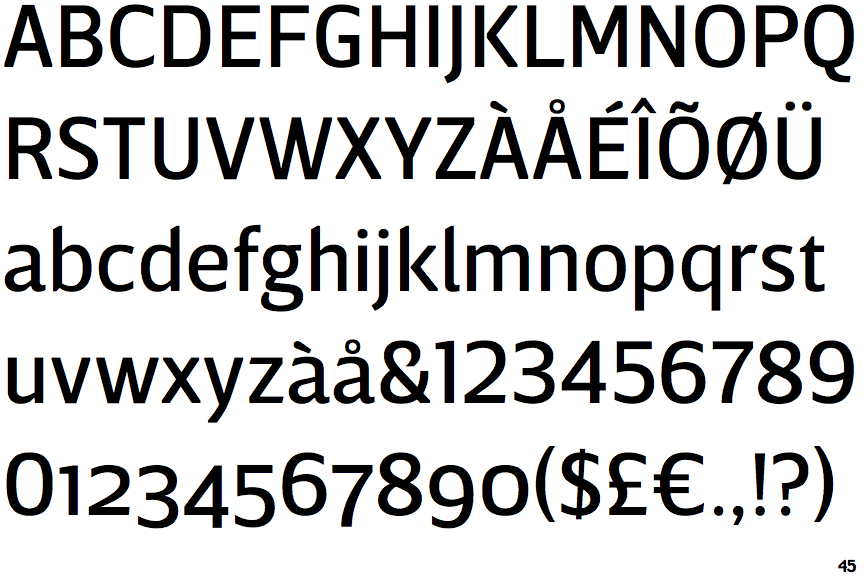
Breve Sans Text
An ideal Companion to the fonts Breve Text and Breve Slab Text.
Designer: Dino dos Santos Year: 2013 Publisher: DSType An OpenType font that includes both lining and oldstyle figures. |